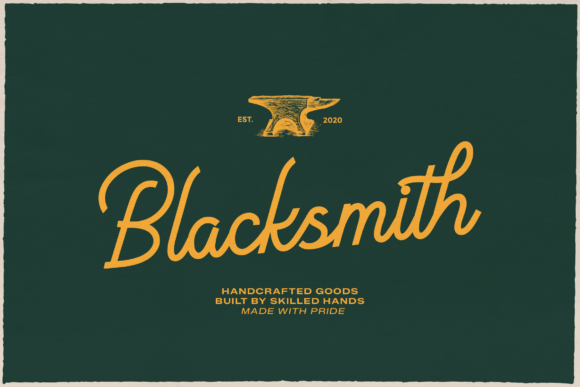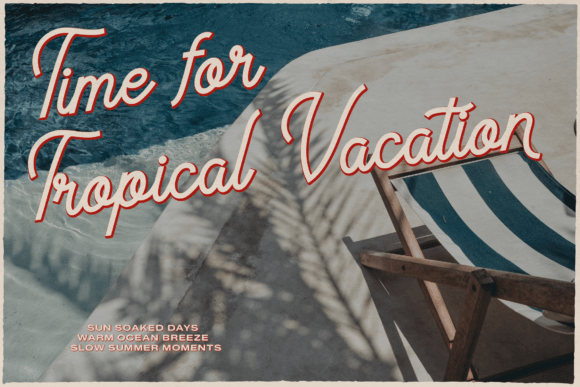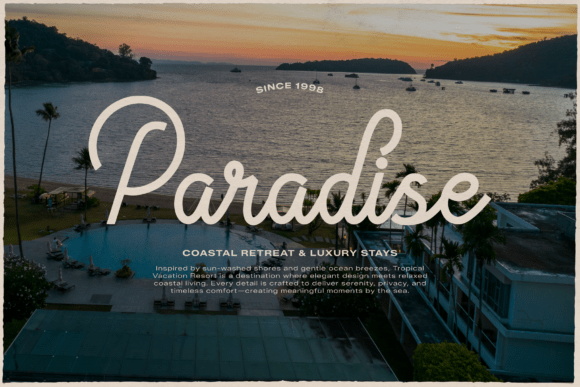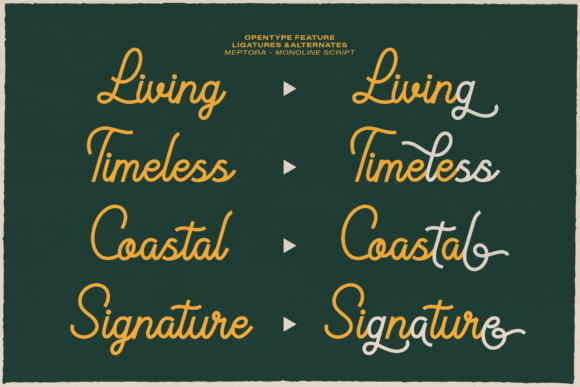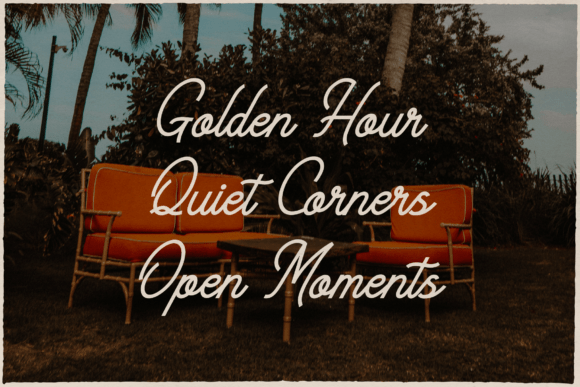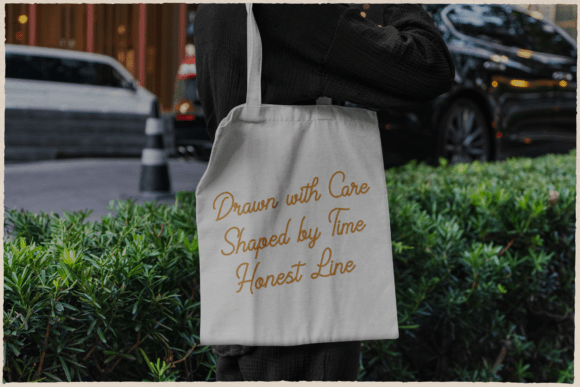
Introduction to Meptora Font
Imagine yourself strolling through a quaint, old town on a crisp autumn morning, surrounded by the charming signs of bygone eras. The warm glow of a vintage lantern, the rustic charm of a handwritten menu, and the effortless elegance of a beautifully crafted monoline script font all blend together to evoke a sense of nostalgia and timelessness. It’s moments like these that inspire designers to seek out the perfect font to capture the essence of their creative project. Enter Meptora Font, a high-quality design resource that embodies the perfect balance of vintage charm and modern sophistication.
Meptora Font is more than just a font – it’s a design resource that offers unparalleled versatility and character. With its consistent stroke weight, fluid connectivity, and hand-lettered soul, it’s an ideal choice for creative projects that require a touch of warmth and authenticity. Whether you’re working on a branding project, creating packaging, or designing social media quotes, Meptora Font provides the perfect backdrop for your message to shine through.
And the best part? Meptora Font is available for free download, making it an accessible design resource for designers of all levels. With its transparent background and generous set of ligatures and alternates, you can easily customize your design to fit your unique vision. Whether you’re working on a small-scale project or a large-scale campaign, Meptora Font is a valuable addition to your design toolkit.
Key Features of Meptora Font
- High-quality, free font ideal for creative projects, offering a unique and modern design.
- Designed with a high resolution, suitable for both web and print applications, ensuring crisp and clear text display.
- Meptora Font is a versatile design element, perfect for a wide range of creative projects, from branding to editorial content.
- Its modern and elegant design makes it an excellent choice for designers seeking a high-quality, free design resource.
Honest Review: Meptora Font
I recently had the chance to work with the Meptora Font, and I’m excited to share my thoughts with you. As a designer, I’m always on the lookout for high-quality design resources that can help me bring my creative projects to life.
What works well about the Meptora Font is its unique and elegant design. The font features a transparent background, making it perfect for use on various backgrounds and designs. The font also comes in a range of weights and styles, allowing for flexibility and versatility in your design projects.
- Range of weights and styles for flexibility
However, there are a few limitations to consider. The font may not be suitable for use in all design projects, particularly those that require a bold or dramatic font style.
Overall, I’m impressed with the Meptora Font and would definitely recommend it to designers looking for a high-quality, transparent background font for their creative projects.
Meptora Font Overview
Meptora Font is a high-quality design resource that offers a transparent background, perfect for creative projects. It’s a versatile font that can be used in various applications, from graphic design to digital publishing.
Tips for Getting the Most Out of Meptora Font
To get the most out of Meptora Font, use it in conjunction with other design resources, such as images and graphics. Experiment with different font sizes, colors, and styles to create visually appealing designs.
Meptora Font is commonly used in:
- Graphic design projects, such as logos and brochures.
- Digital publishing, such as e-books and magazines.
- Web design, such as website headers and footers.